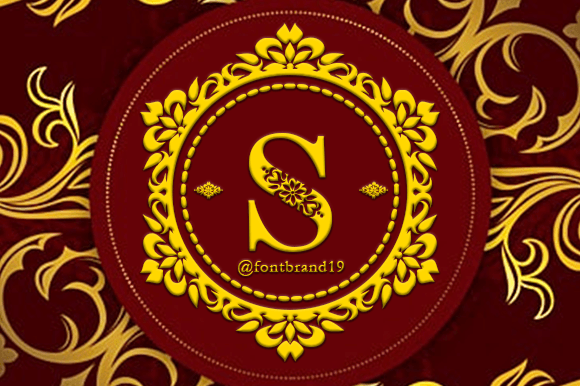
Journey into the realm of elegance and grace with Sari Monogram, a decorative font that captivates hearts with its intricate beauty. Its delicate strokes and ornate flourishes bring a timeless charm to any design, evoking a sense of sophistication and luxury. Sari Monogram is the perfect choice for those seeking a font that exudes elegance and refinement.
Unleash your creativity and let your designs bloom with Sari Monogram, a decorative font crafted to inspire. Its graceful curves and intricate details add a touch of magic to any project, transforming ordinary words into works of art. Let your imagination soar as you create stunning wedding invitations, breathtaking stationary art, eye-catching social media posts, and heartfelt greeting cards.
With Sari Monogram, the possibilities are endless. Its versatile nature allows it to seamlessly blend with a variety of design styles, from classic and traditional to modern and contemporary. Whether you're a seasoned designer or just starting out, Sari Monogram is the perfect font to elevate your projects and leave a lasting impression.
Immerse yourself in the world of Sari Monogram and discover a font that speaks to your soul. Its enchanting aura adds a touch of enchantment to any design, captivating your audience and leaving them spellbound. Step into the realm of elegance and grace, where Sari Monogram reigns supreme, and let your creativity flourish like never before.